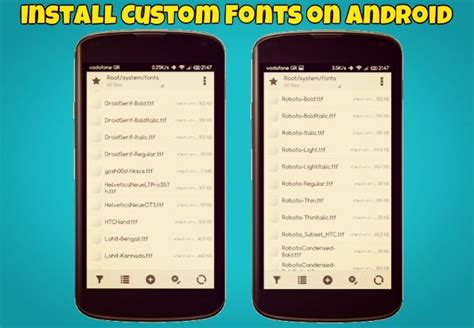
Download Custom Fonts On Android: A Simple Guide
Download Custom Fonts on Android: A Simple Guide
Hey guys! Ever looked at your Android phone and thought, “Man, I wish I could spice up the font game?” You’re not alone! The default fonts are okay, but sometimes you just crave something… different . Well, good news! Downloading and using custom fonts on Android is totally doable. It’s like giving your phone a makeover. This guide is your ultimate buddy, walking you through everything you need to know, from the basics to the fun stuff.
Why Bother with Custom Fonts?
Okay, before we dive into the how-to, let’s chat about why you might even want to download custom fonts on your Android device. It’s not just about looking cool, although that’s definitely a perk! Custom fonts can significantly enhance your user experience, and here are a few reasons why:
• Personalization: This is the big one. Your phone is yours , right? Custom fonts are a fantastic way to personalize your device and make it truly reflect your style. Maybe you’re into sleek, modern fonts, or perhaps you’re a sucker for vintage, handwritten styles. Whatever your vibe, there’s a font out there for you.
• Readability: Believe it or not, some custom fonts are more readable than the defaults. If you struggle with eye strain or have visual impairments, finding a font that’s easier on the eyes can make a huge difference in your daily phone use. Imagine a font that feels like a warm hug for your eyeballs, making it easier to read all your texts, emails, and favorite articles without straining.
• Aesthetic Appeal: Let’s face it: aesthetics matter! Custom fonts can dramatically improve the visual appeal of your phone. They can make your home screen look more cohesive, your apps more stylish, and your overall experience more enjoyable. Think of it as the cherry on top of your phone’s design sundae.
• Standing Out: In a world where everyone has a smartphone, custom fonts are a subtle way to stand out from the crowd. It’s like wearing a unique pair of shoes or having a signature hairstyle – it’s a small detail that makes a big impact. Your phone becomes a conversation starter, reflecting your personality and taste.
• Brand Awareness: If you’re a business owner or a content creator, custom fonts can also be a branding tool. Using a consistent font across all your digital platforms, including your phone, helps reinforce your brand identity and create a memorable visual experience for your audience. It helps people recognize your brand at a glance.
So, there you have it, folks! Plenty of reasons to get excited about custom fonts. Now, let’s get into the nitty-gritty of how to download and install them on your Android device. Trust me, it’s easier than you might think.
• A Font Management App (Optional, but Recommended): While some Android phones allow you to change fonts directly from the settings menu, many require a third-party font management app. These apps make it super easy to browse, download, and install fonts. We’ll recommend some popular options later on.
• A Bit of Patience: Sometimes, the process can be a little finicky, depending on your phone model and Android version. Don’t worry, though, we’ll guide you through it. Just be prepared to troubleshoot a bit if needed.
That’s it! Once you’ve got these basics covered, you’re ready to roll. Now, let’s explore the different methods for downloading and installing custom fonts.
Method 1: Using Your Phone’s Settings (If Supported)
Okay, guys, the easiest way to change your font is if your phone already supports it natively. Some Android manufacturers, like Samsung, Xiaomi, and OnePlus, have built-in font settings. This means you can change your font without needing to download any extra apps.
Here’s how to check if your phone supports this method:
1. Open Settings: Find the Settings app on your home screen or in your app drawer. It usually looks like a gear icon.
2. Look for “Display” or “Font” Options: Within Settings, look for a section labeled “Display,” “Font,” or something similar. The exact wording might vary depending on your phone’s manufacturer and Android version.
3. Explore the Font Settings: If you find a “Font” option, tap on it. You should see a list of pre-installed fonts and an option to download more. This is where the magic happens!
Well, guys, that’s it! You’ve learned how to download and install custom fonts on your Android device. It’s time to unleash your creativity and make your phone truly your own. Experiment with different fonts, find the ones you love, and have fun customizing your device.